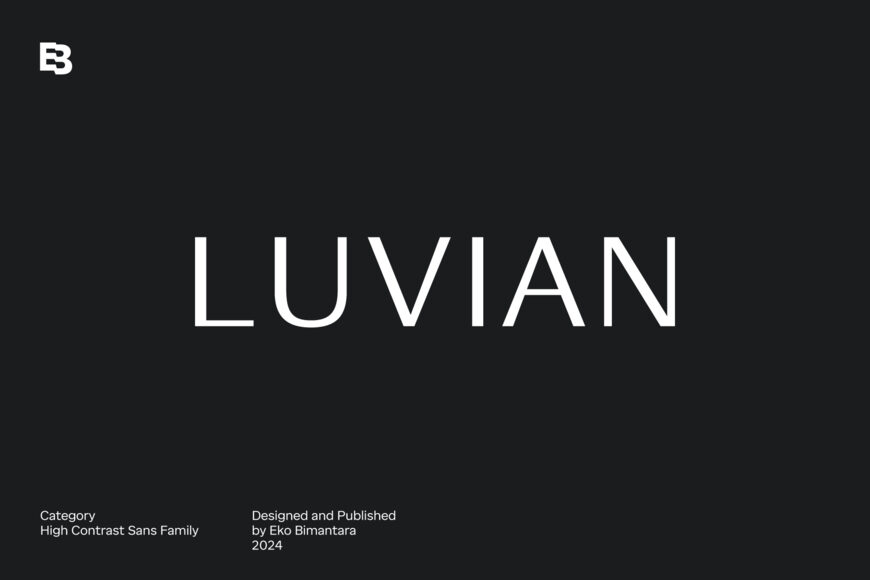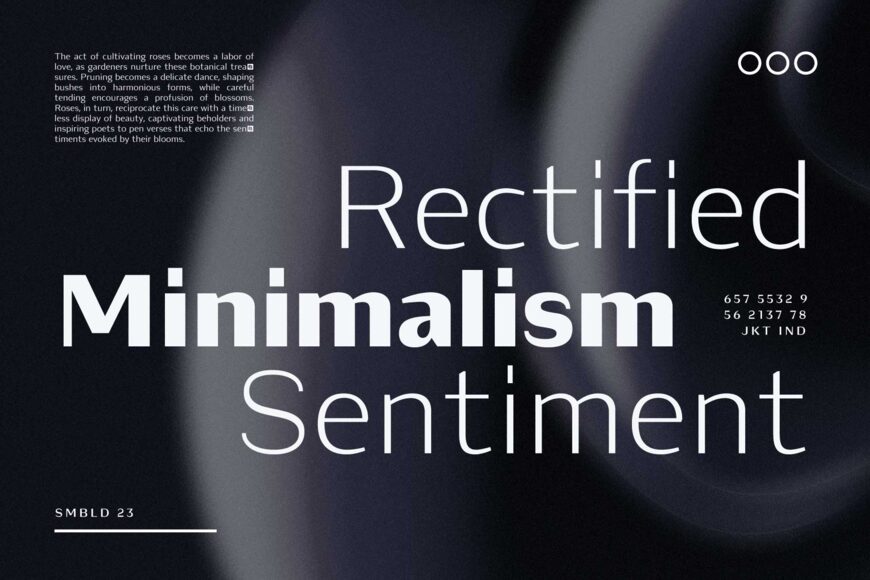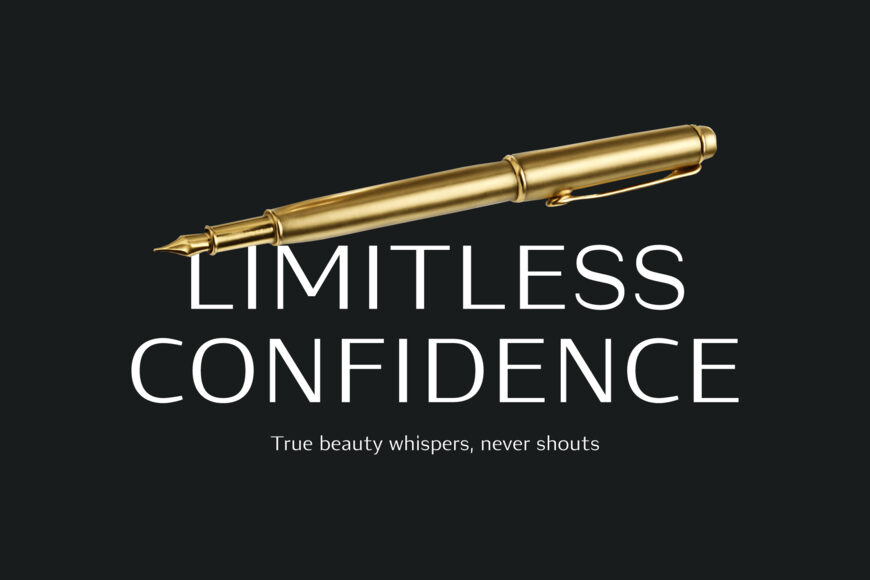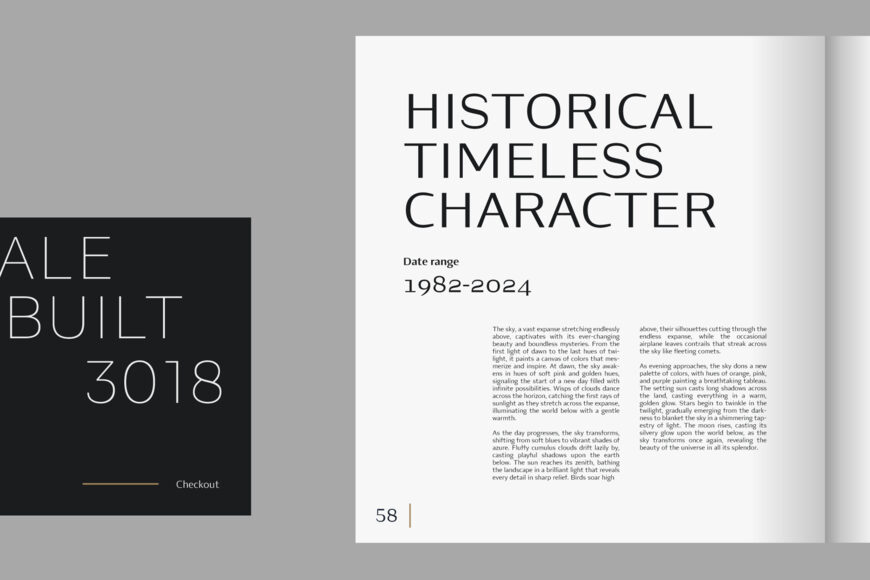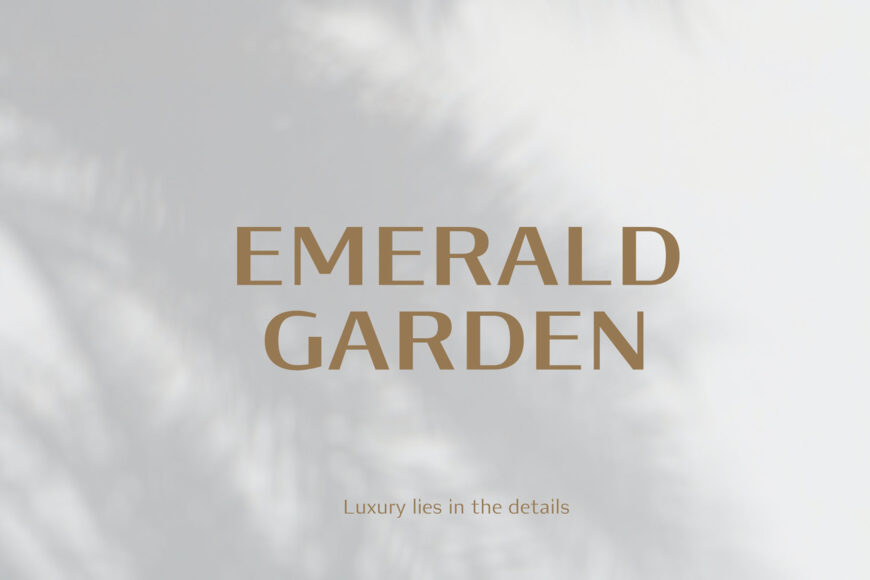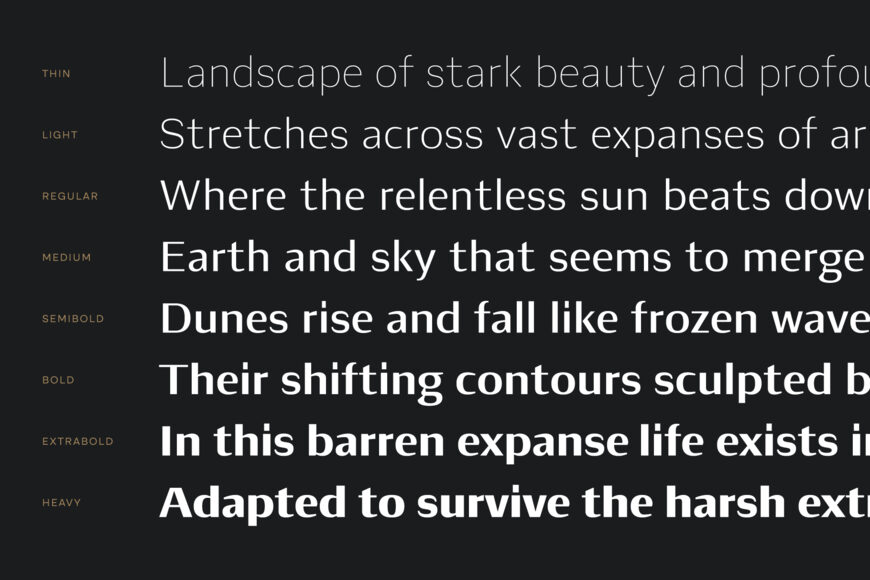
Luvian Font Family
Luvian is a high-contrast sans serif font family that combines elegant letterforms with a distinctive visual presence. Blending classic charm with a contemporary character, it is well suited for displays, large headers, layouts, logos, websites, brand identities, product packaging, and text.
Its refined design adapts effortlessly across a wide range of creative applications, making Luvian an excellent choice for designers seeking typography that is both sophisticated and versatile.